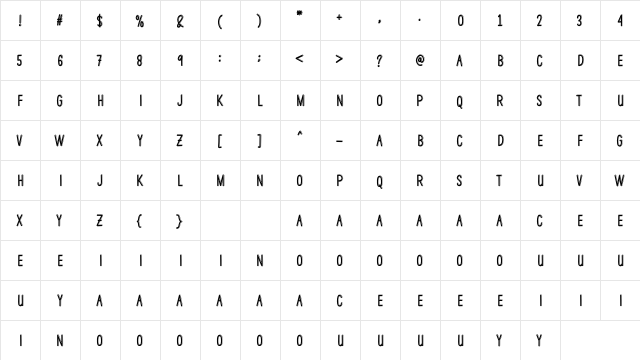
Moon Night Regular
Design Context for Moon Night Typeface
Moon Night offers clean, dependable letterforms without strong stylistic allegiance, making it a practical choice for designers who need flexibility.